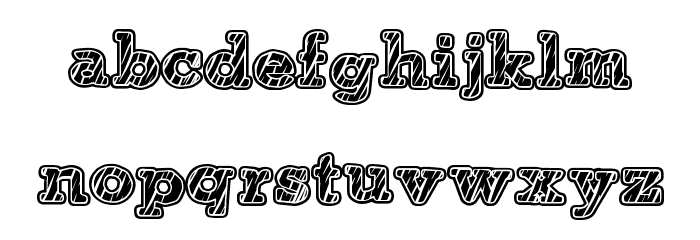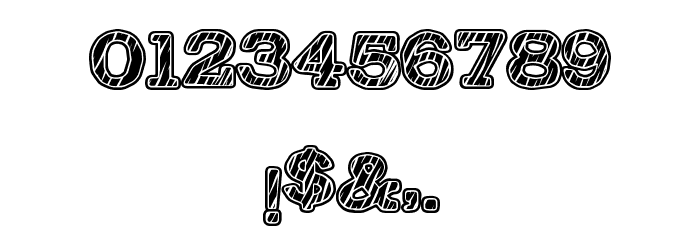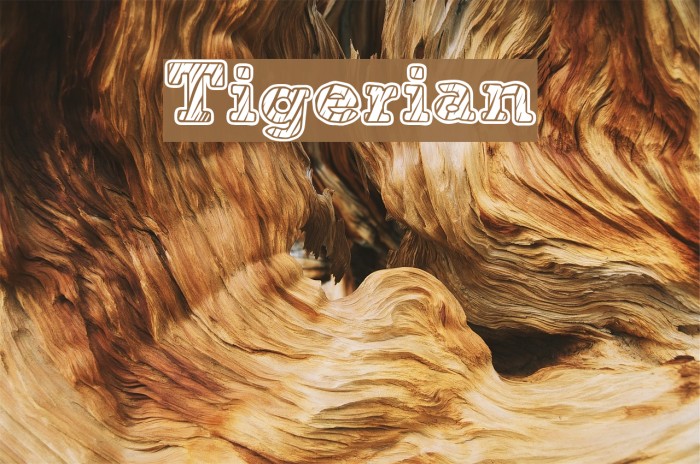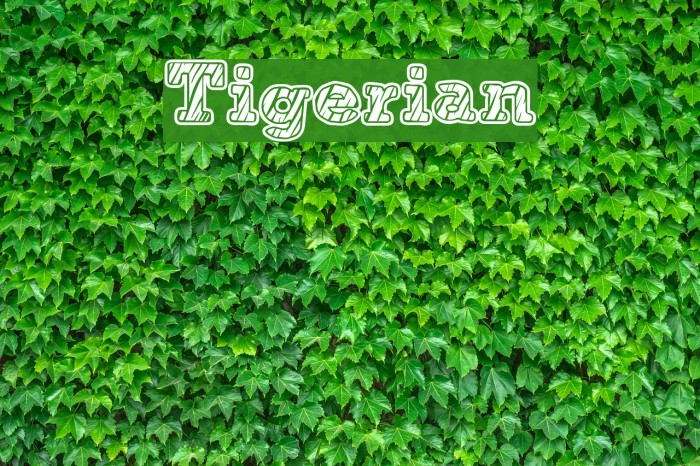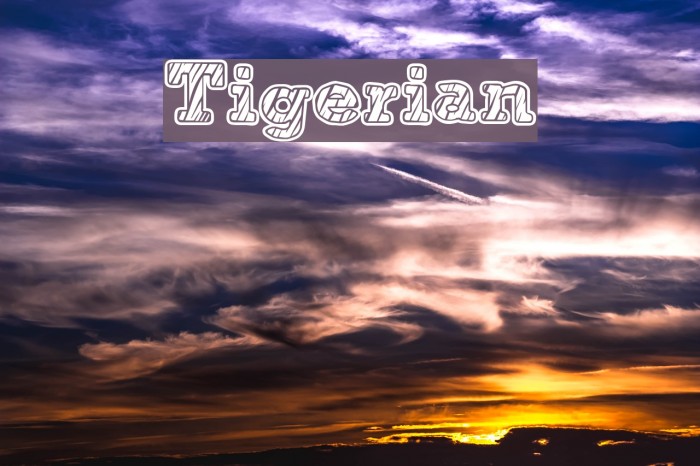
Tigerian Font
This font features a bold and decorative style with a unique striped pattern filling each character. The uppercase and lowercase letters maintain a consistent design, with thick outlines that enhance their visibility. The numerals and special characters follow the same aesthetic, ensuring uniformity across all glyphs. The font's playful and eye-catching design makes it suitable for creative projects that require a standout typeface. Its boldness and decorative elements suggest a strong presence, ideal for capturing attention.
A bold, decorative font with a unique striped pattern and thick outlines.
- Proposed Projects: Ideal for posters, logos, headlines, and any design project that requires a bold and decorative typeface.